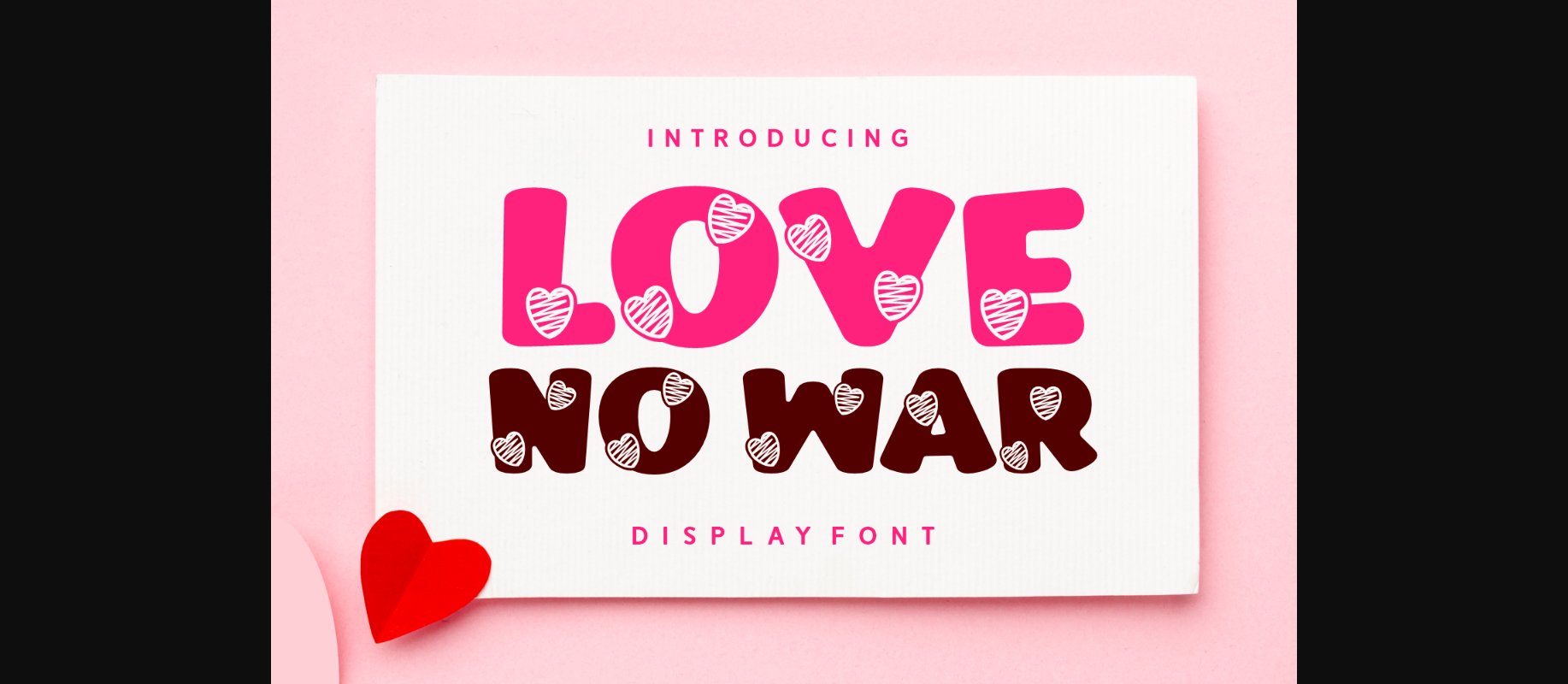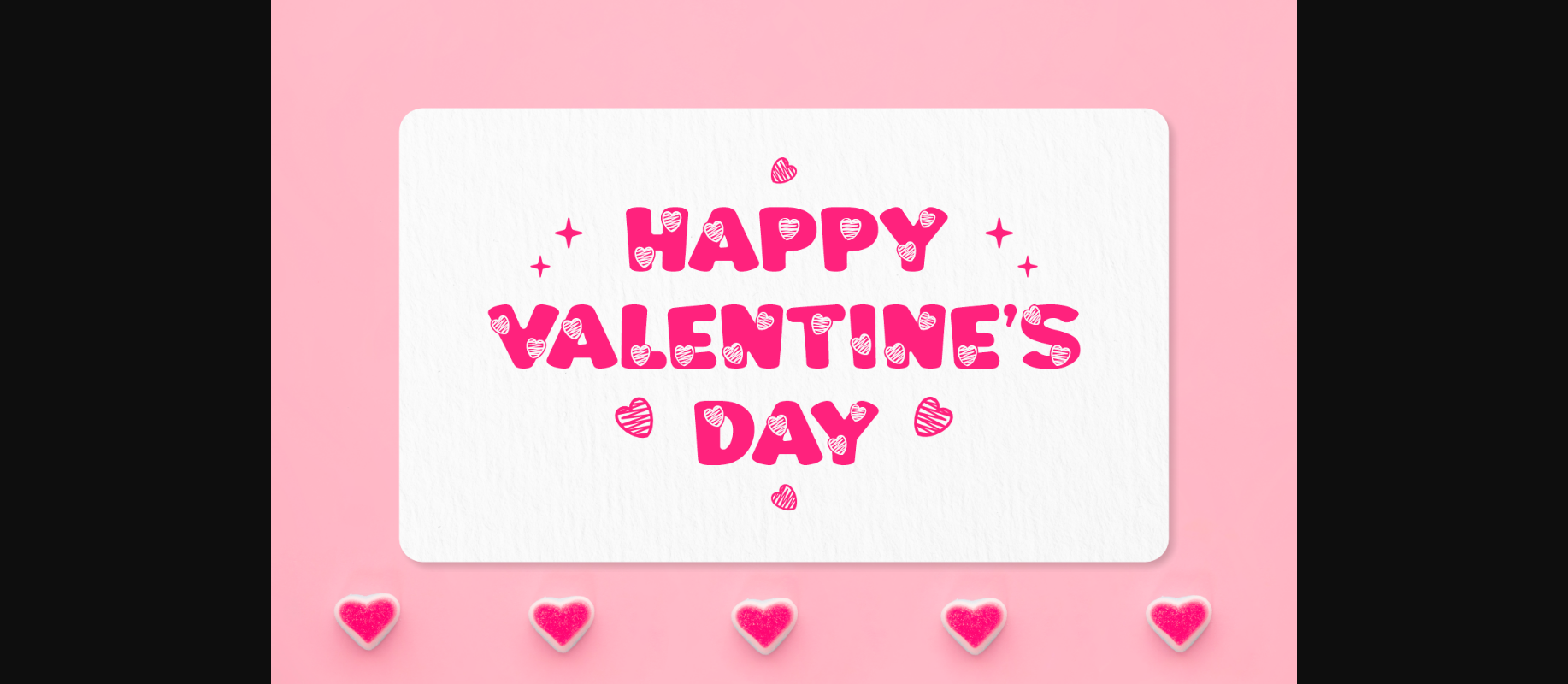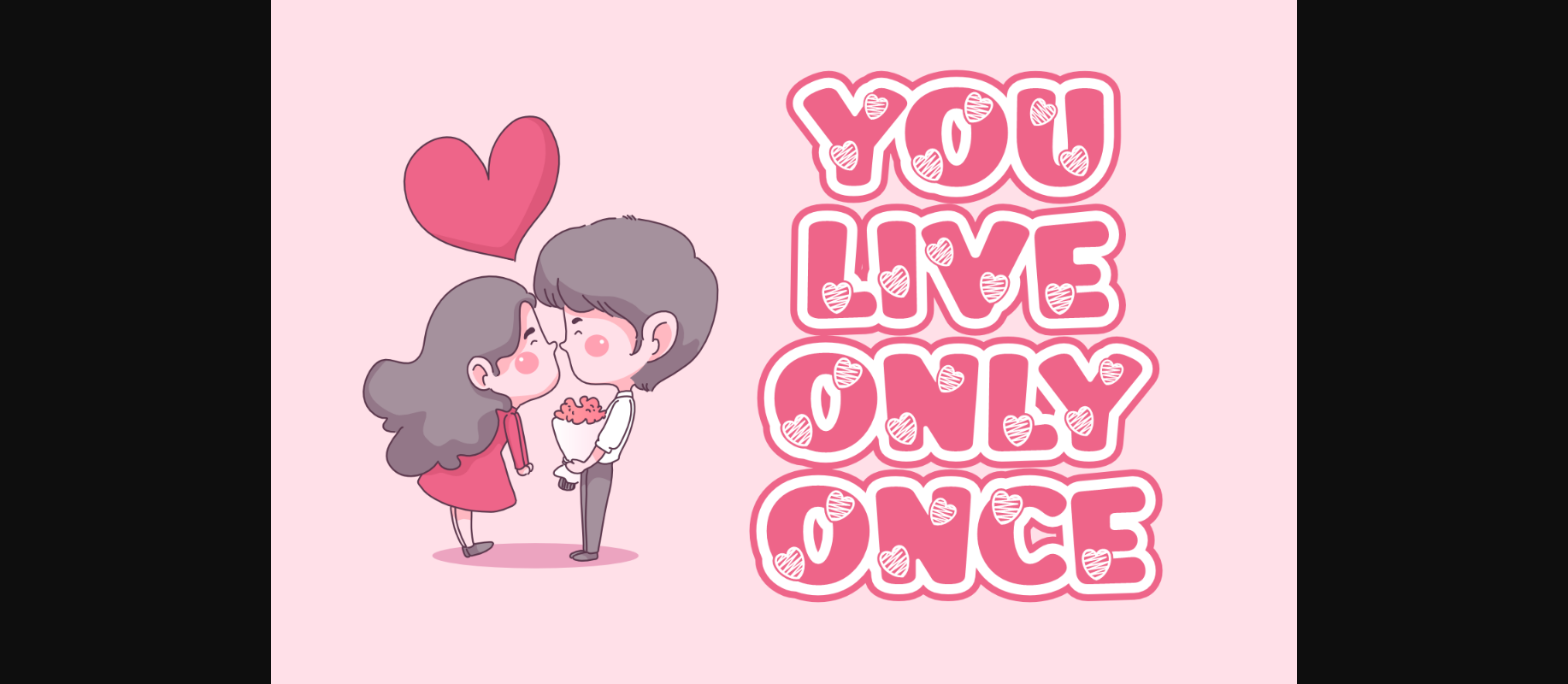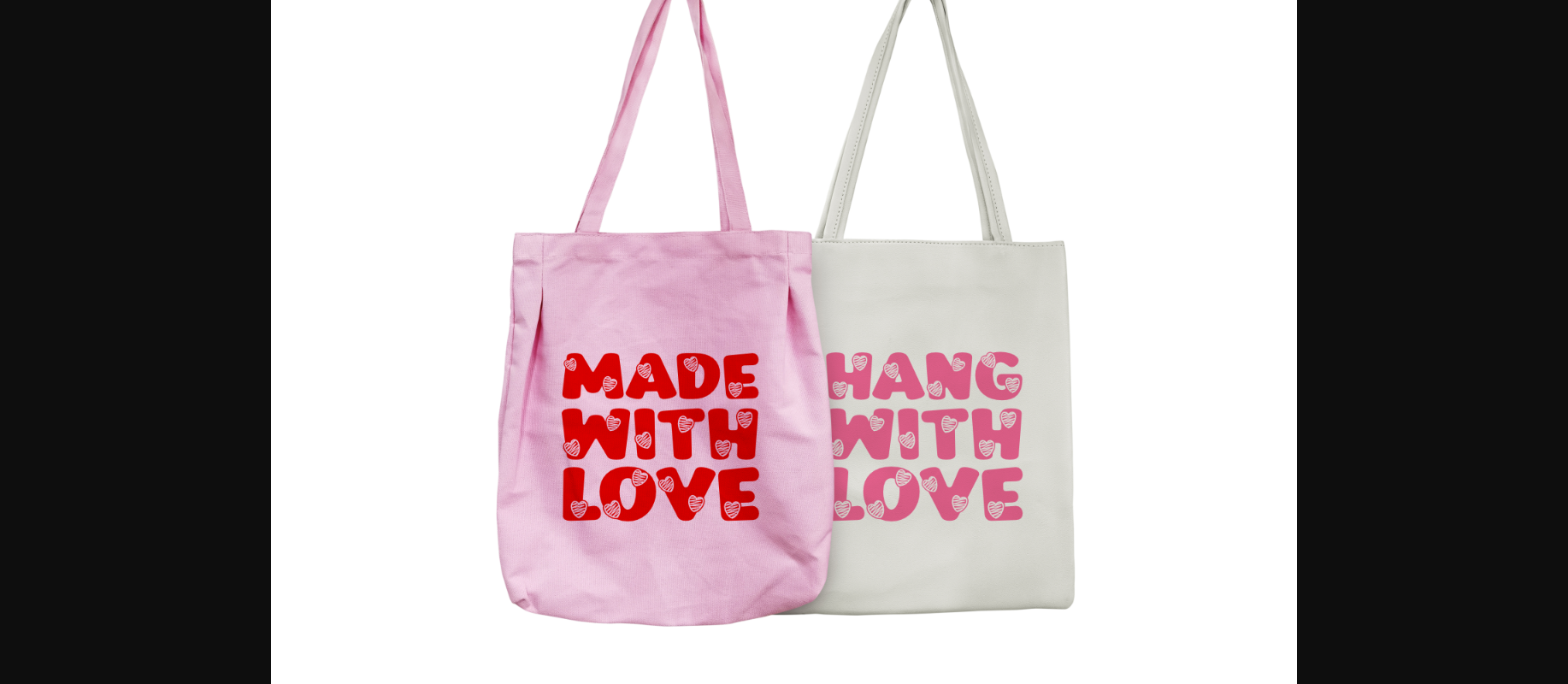
Love No War Font
About Love No War Font
Love No War is a delightful decorative font adorned with charming hearts on each letter. It’s a sweet and whimsical choice that adds a touch of love to your projects. Perfect for expressing affection in your designs, this font brings a playful and heartwarming vibe. Spread love, not war, with the Love No War font — an enchanting way to add a dash of romance to your creative endeavors.